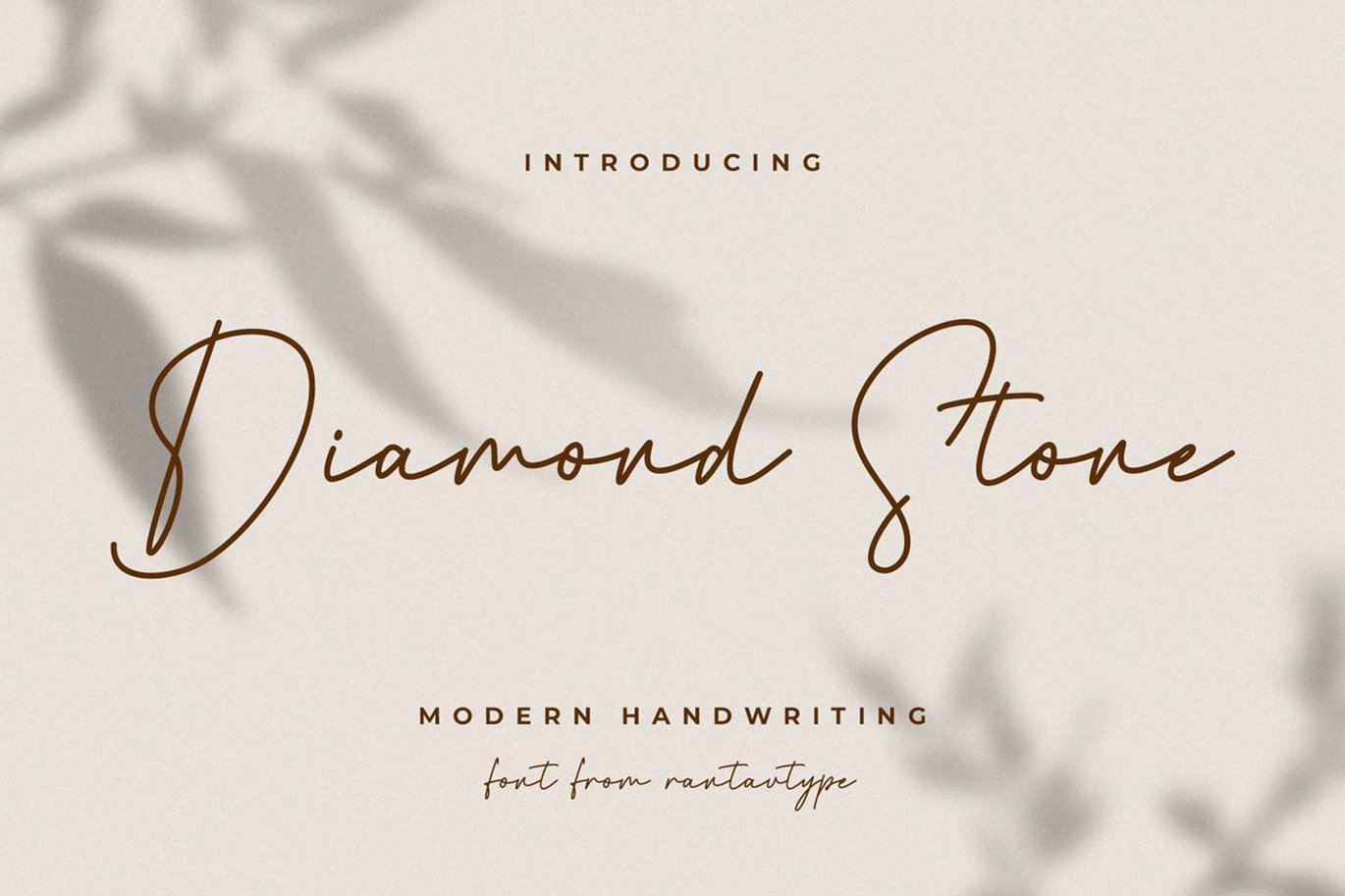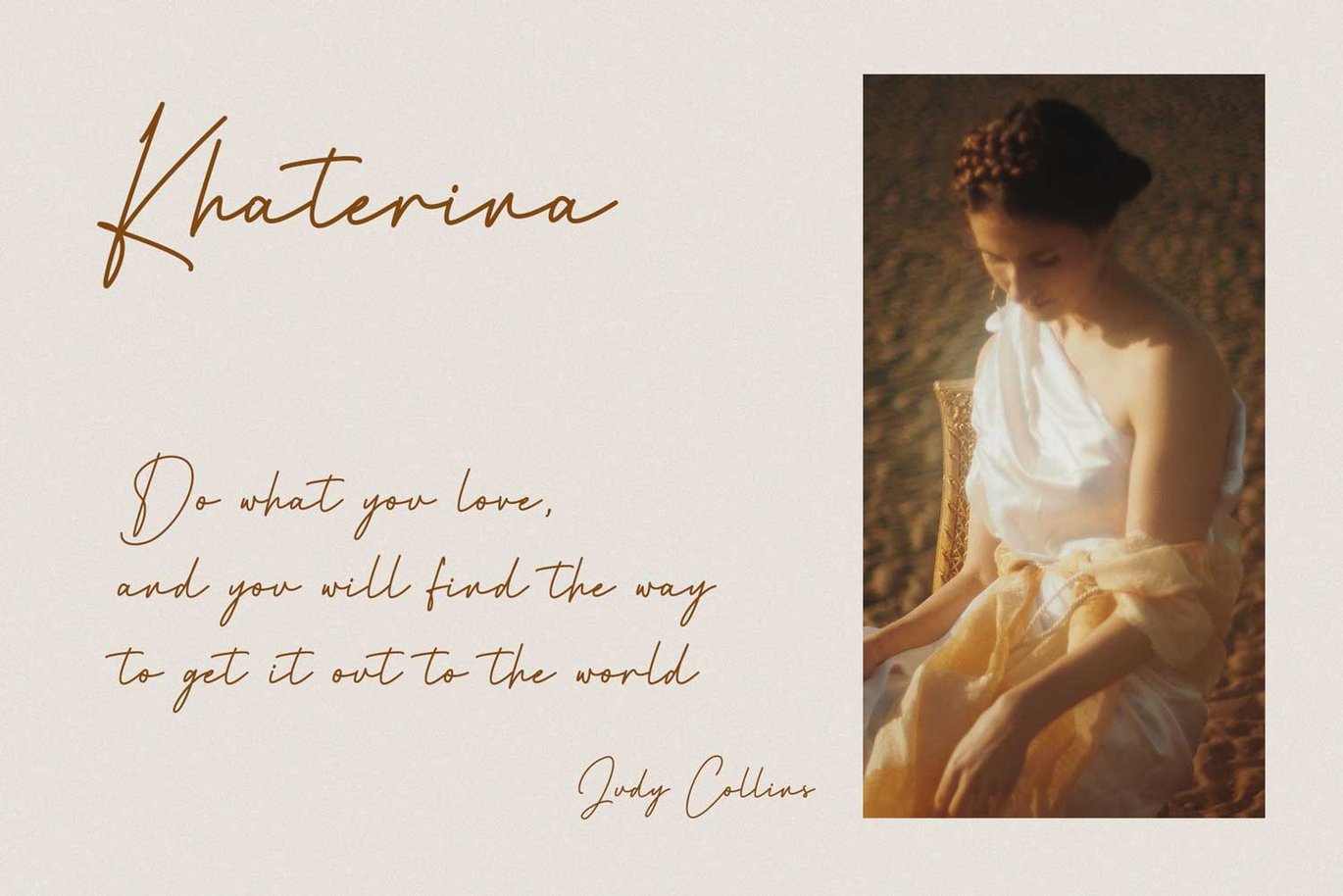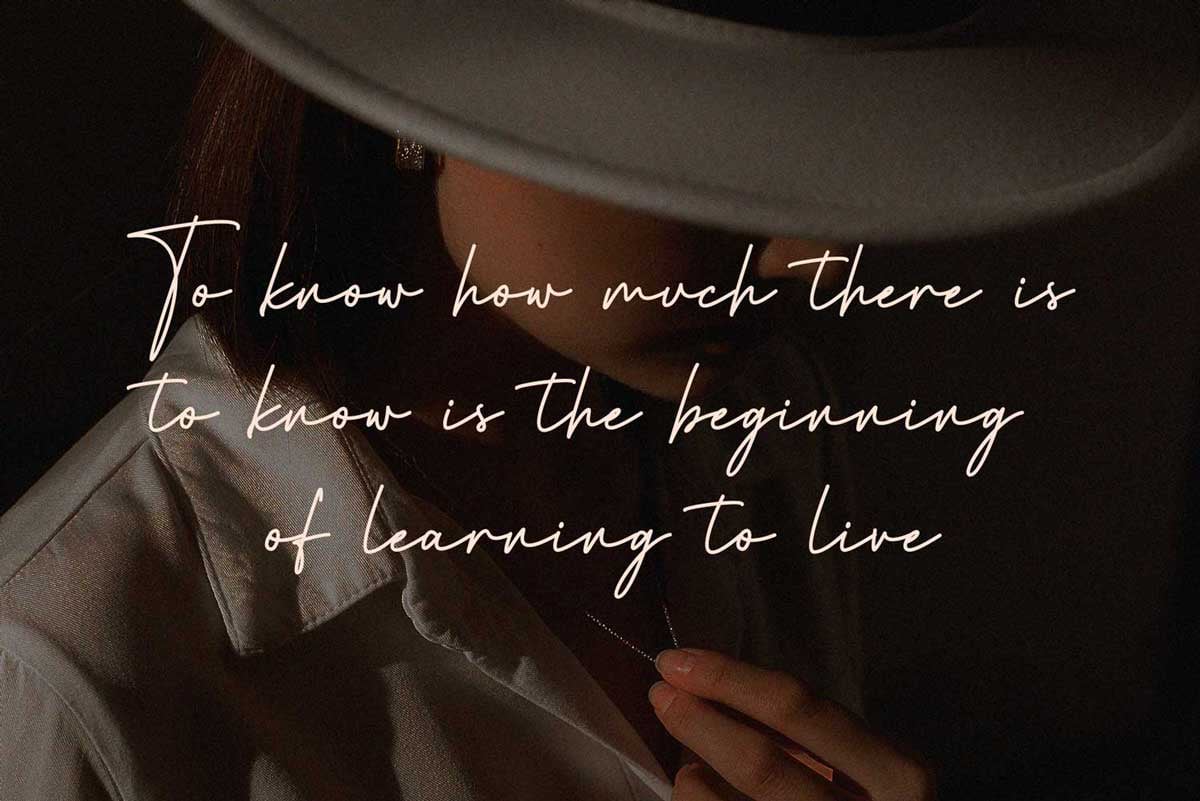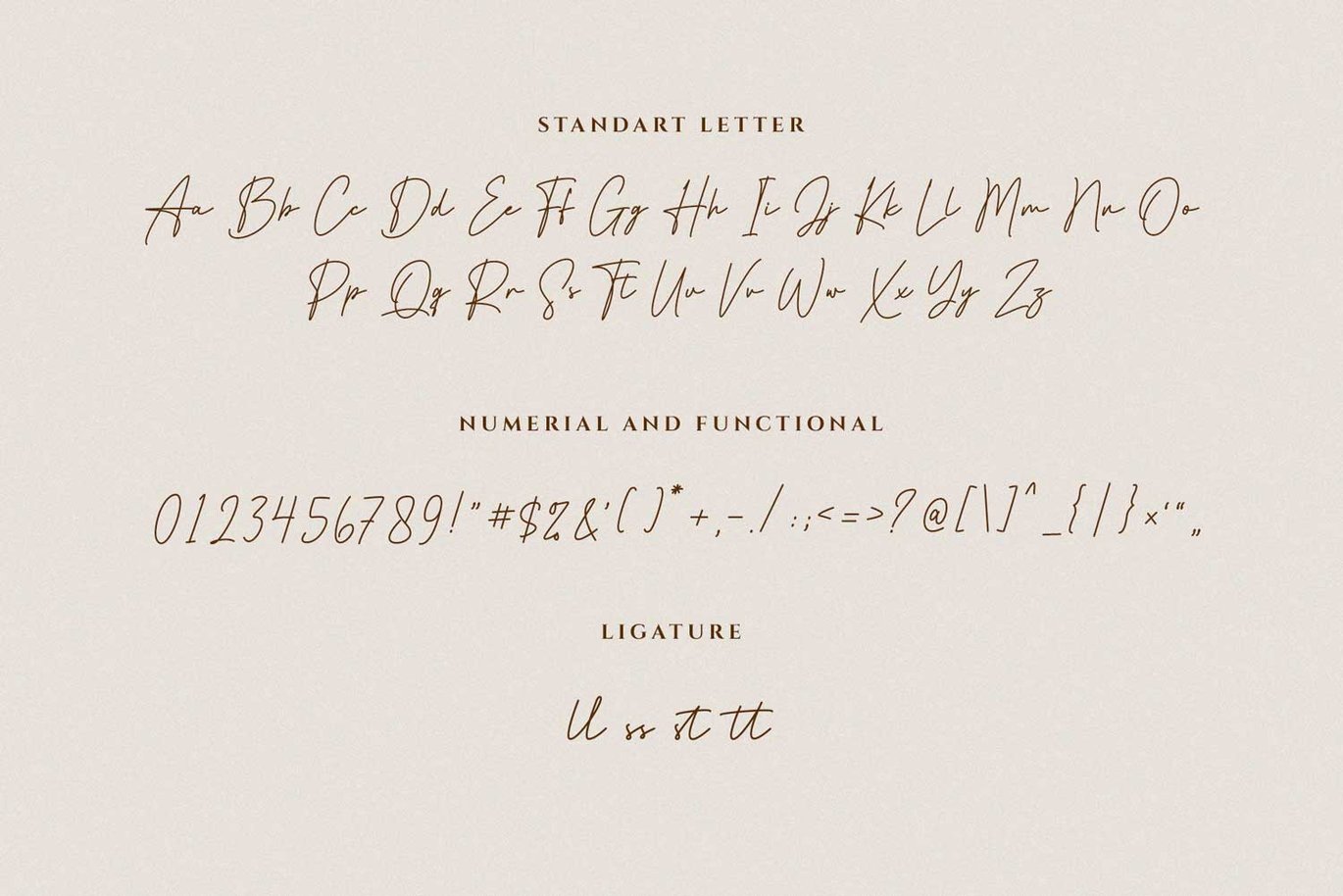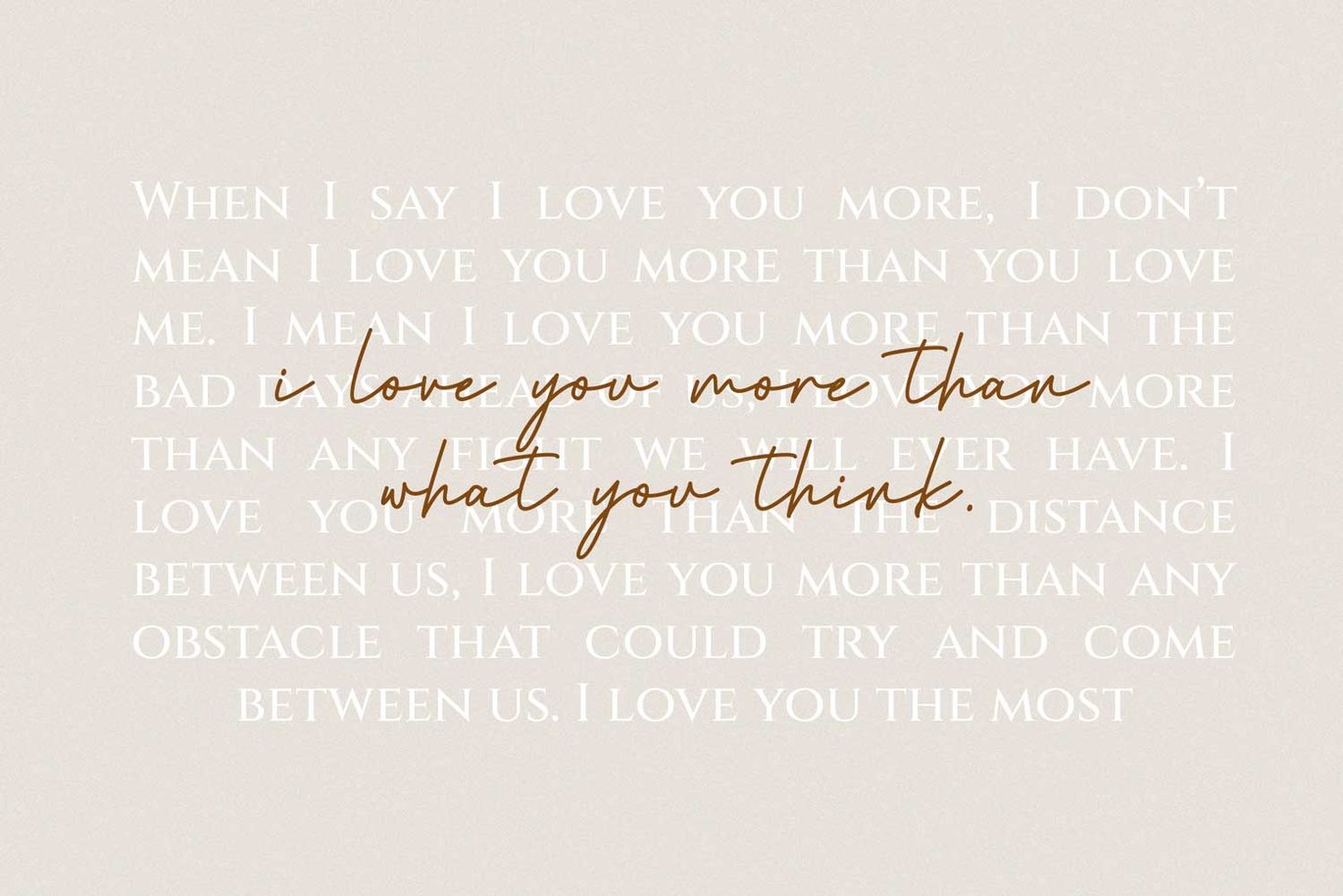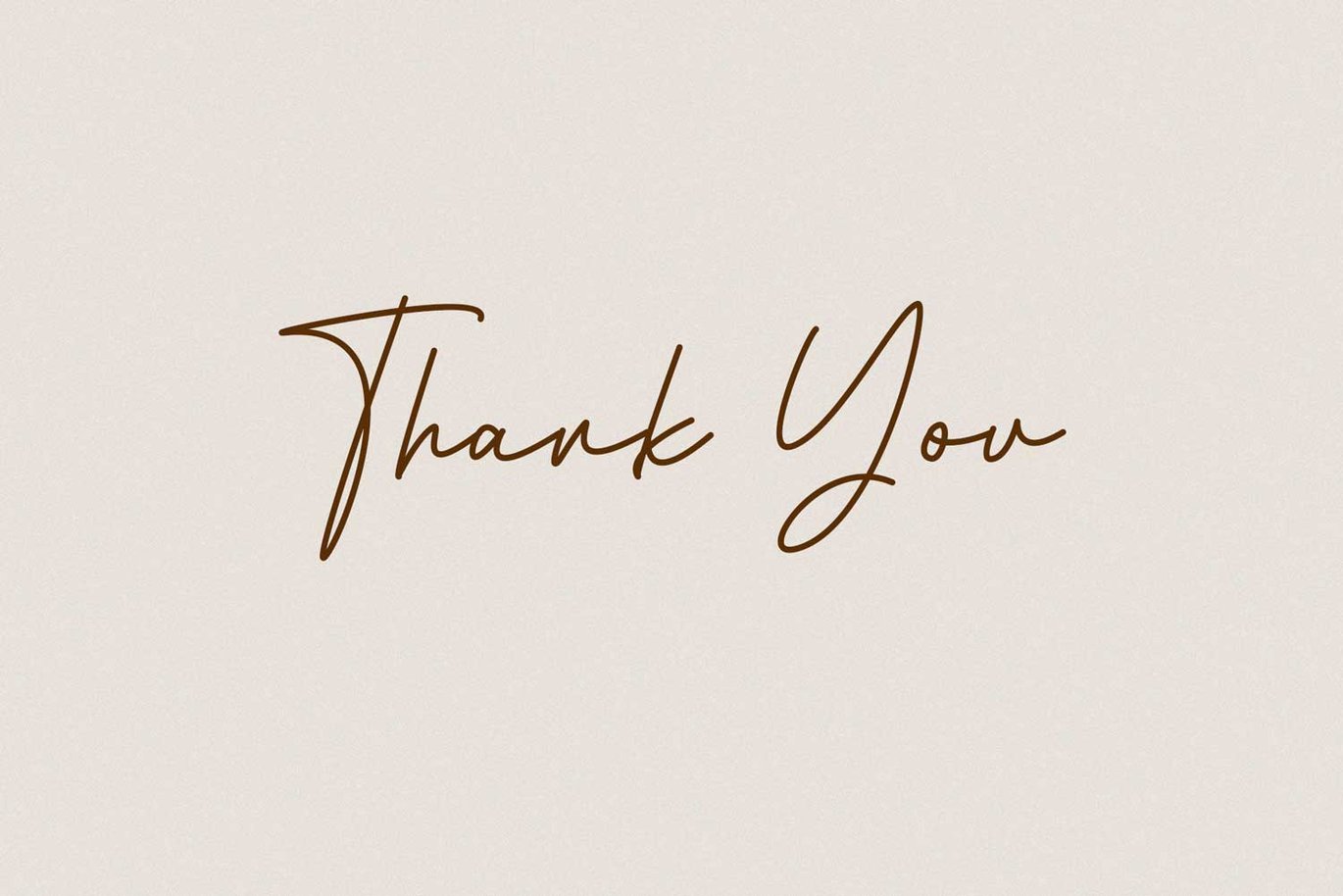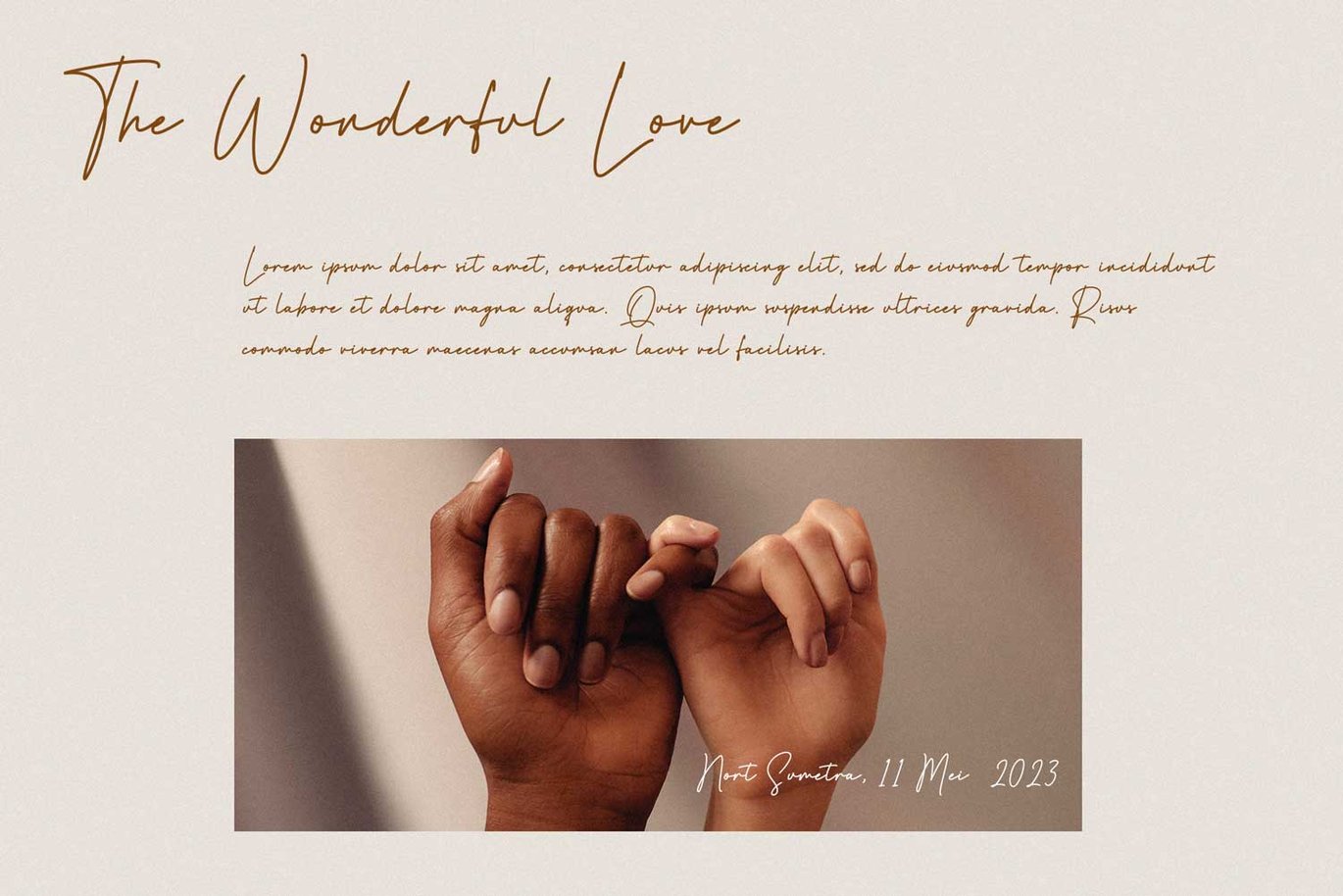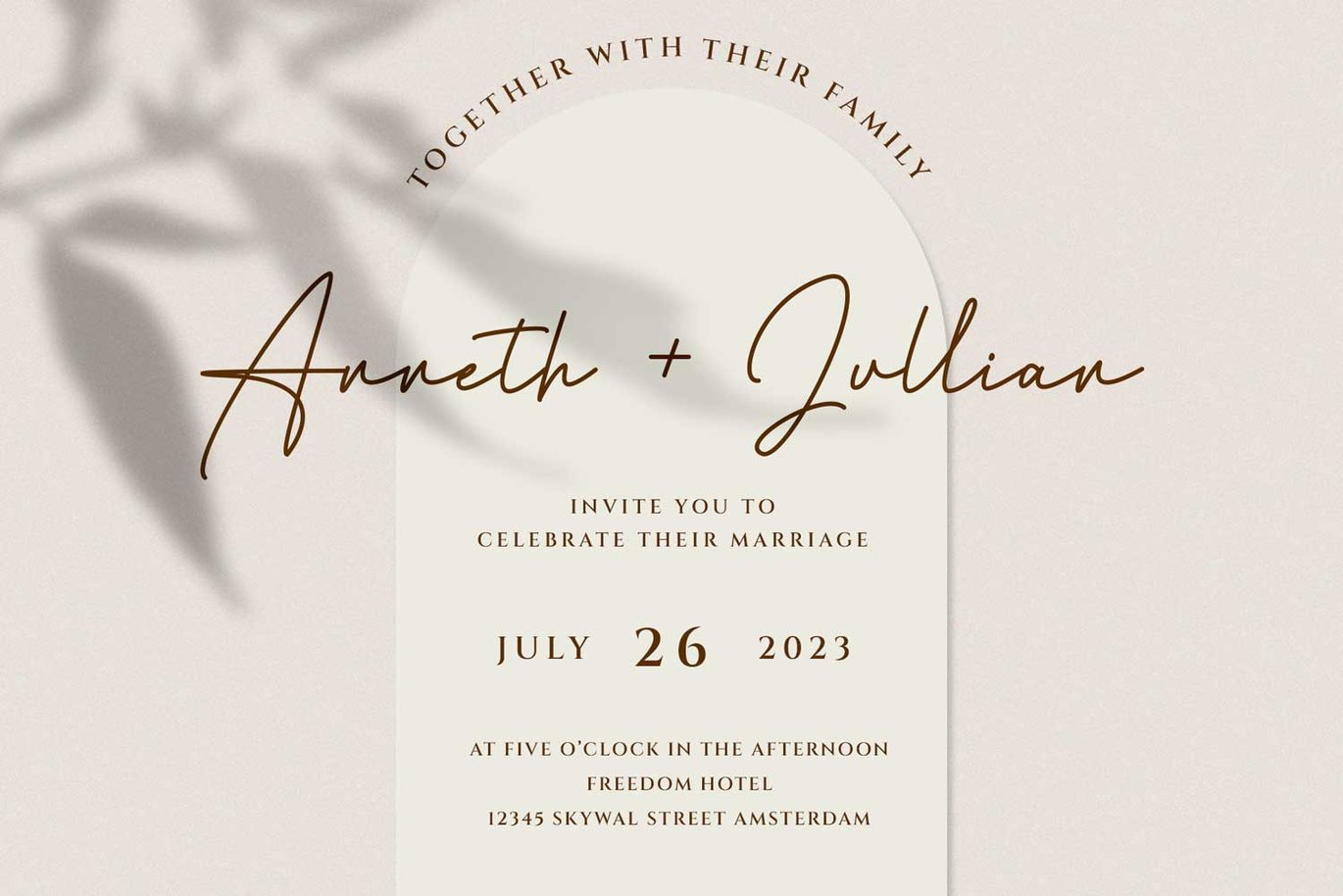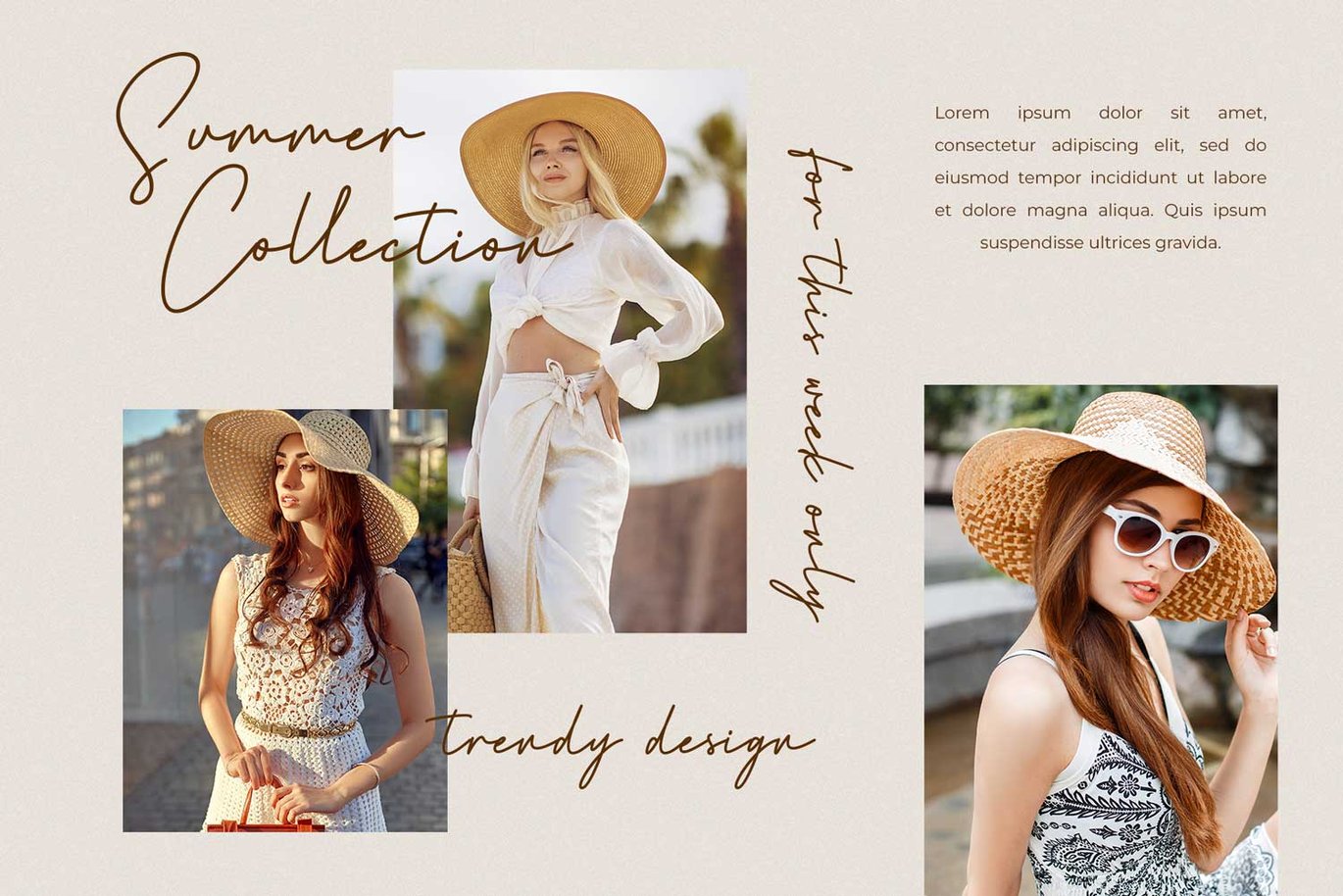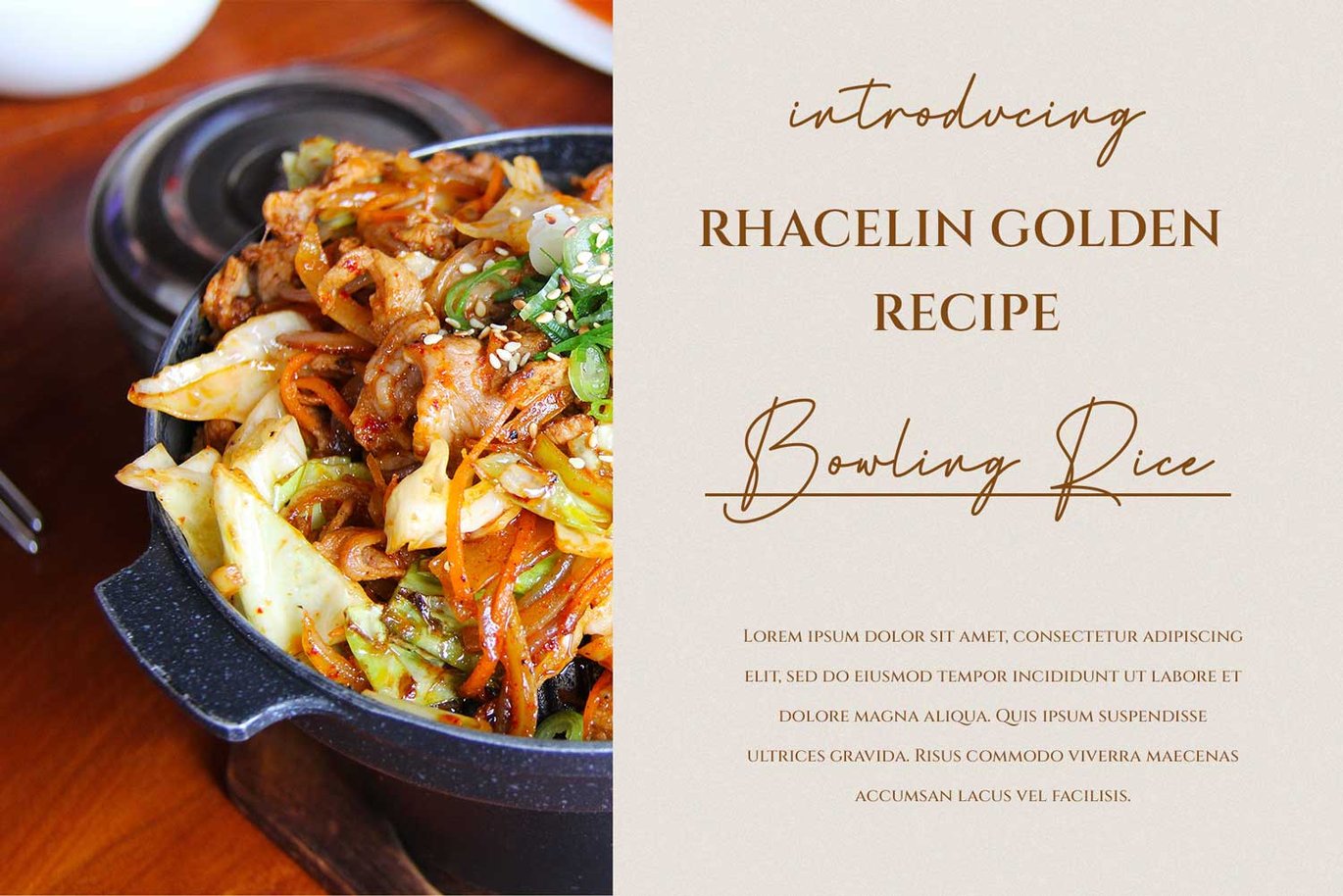
Diamond Stone Handwritten Font
Proudly present script font “Diamond stone”. Diamond stone is a modern handwritten font and eevery single curve has my personality touch. It is great for making logotype, branding, promotional ads, quotes design, packaging, merchandise, poster, merchandise, social media and much more.